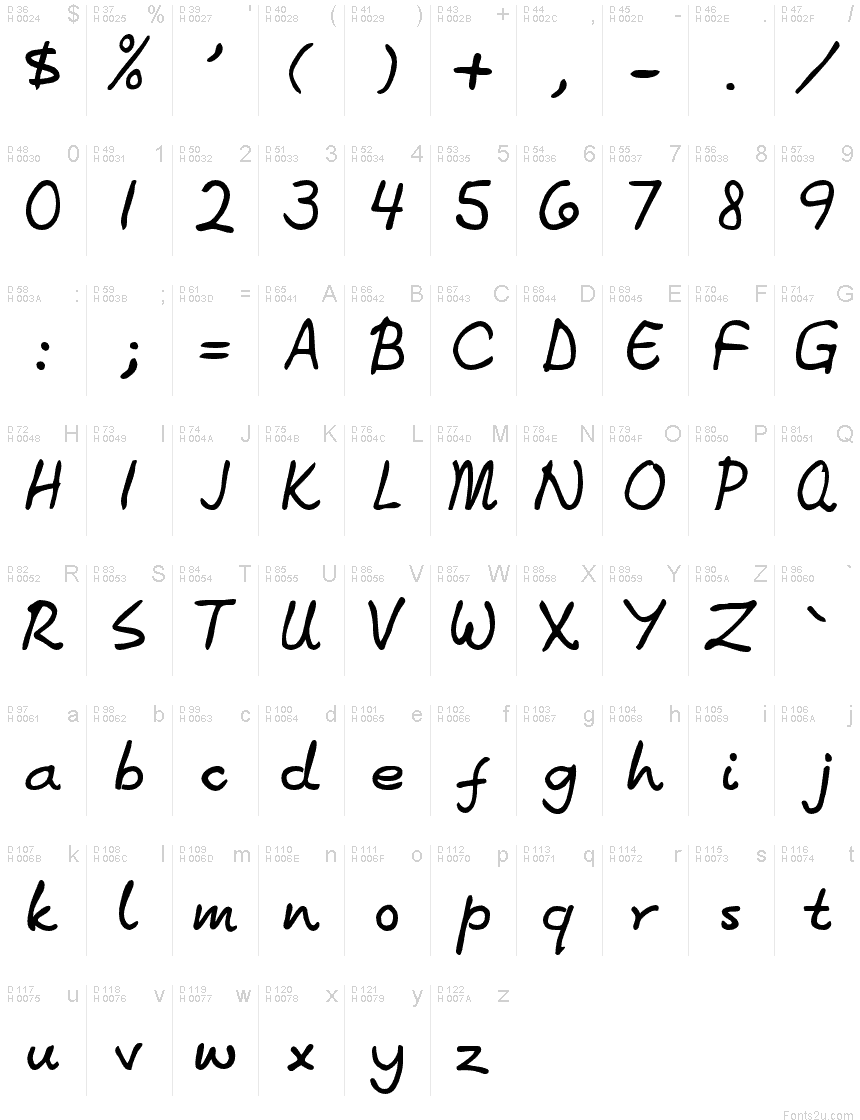
McMuratti by Murat Yegul is a free handwritten font with the loose, oversized look of quick marker lettering. Stroke widths shift noticeably, and the letters lean and stretch in different directions rather than following a polished rhythm. Tall capitals and compact lowercase forms make the texture lively and slightly unruly.
Independent cafes and casual food brands could use it for packaging, menus, storefront graphics, social media posts, and event promotions that need an informal, personal voice. Its looping strokes can also become part of a hand-drawn label or window sign, linking the words directly to surrounding doodles and illustrations.
McMuratti
Murat Yegul